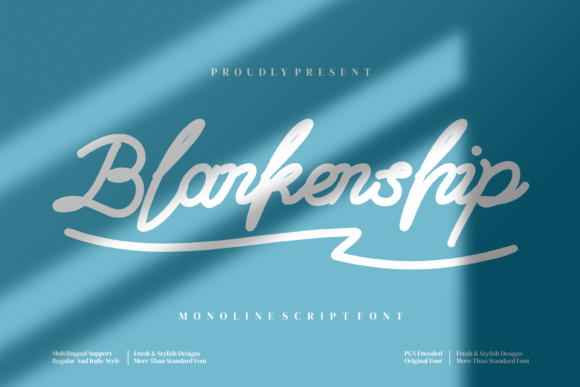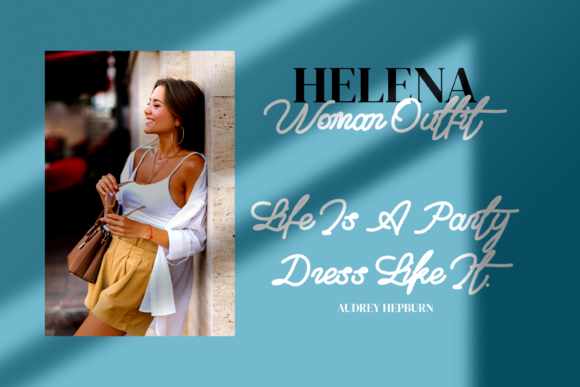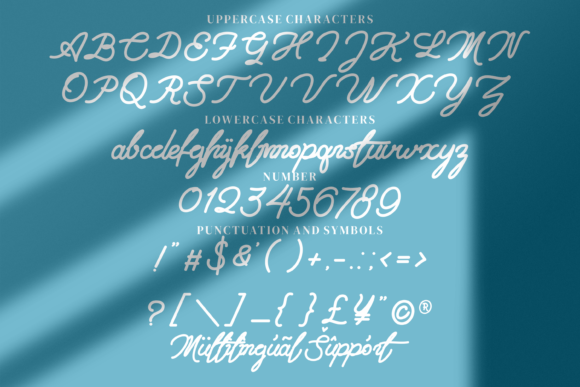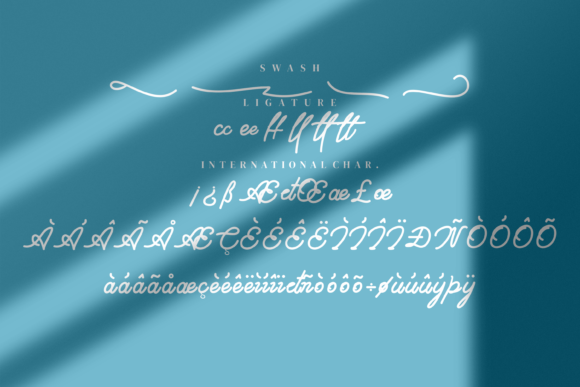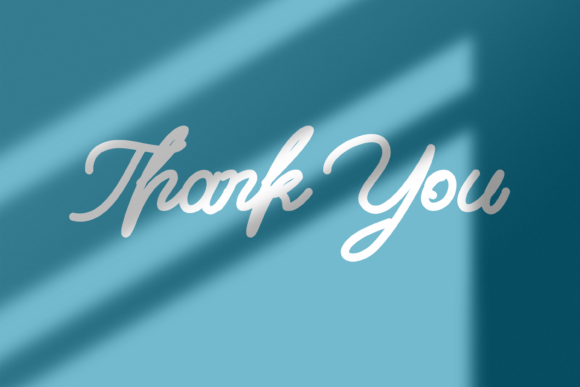
About Blankenship Font
Blankenship is a stylish and incredibly elegant script font. It looks stunning on wedding invitations, thank you cards, quotes, greeting cards, logos, business cards and every other design which needs a handwritten touch.